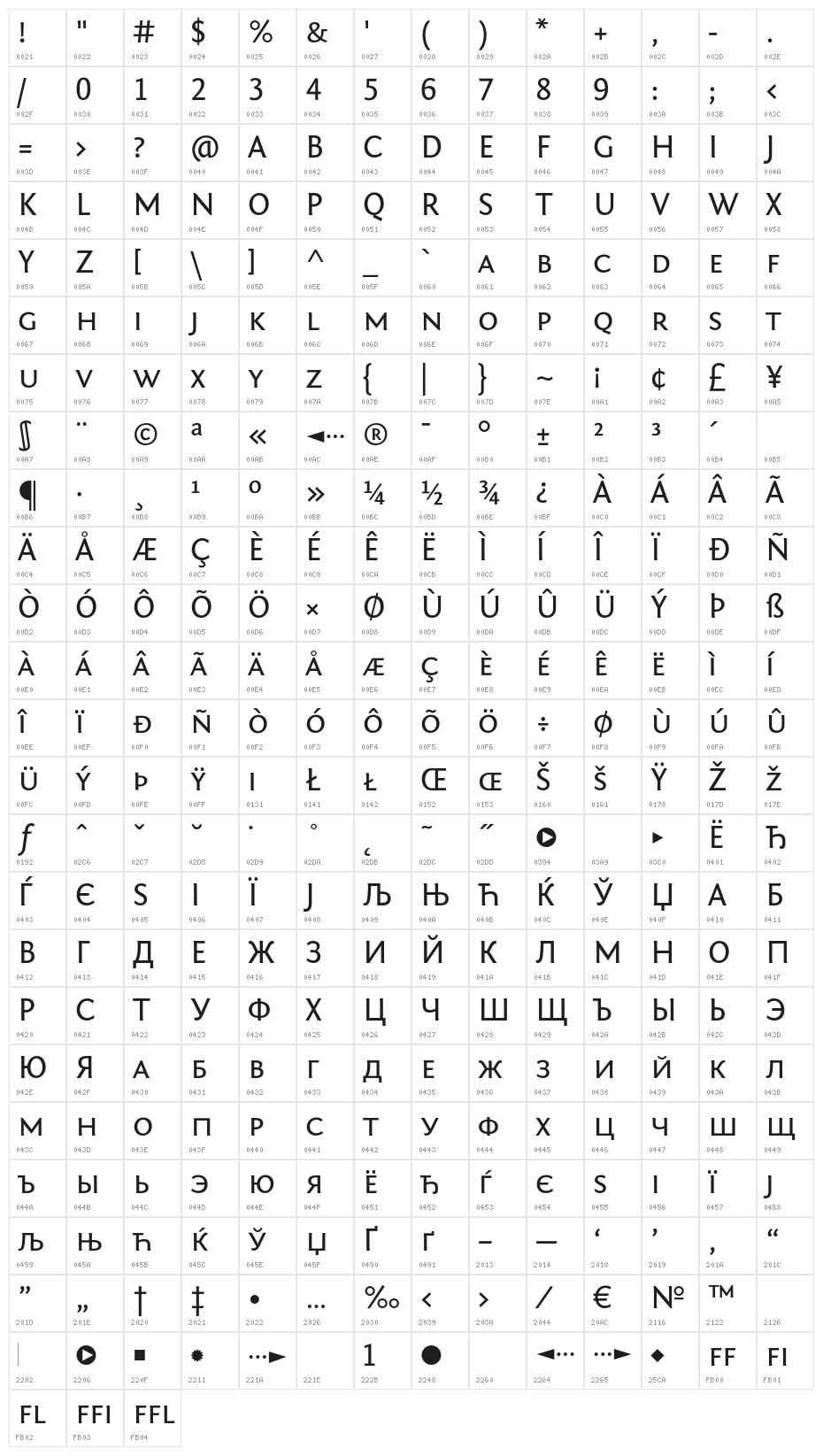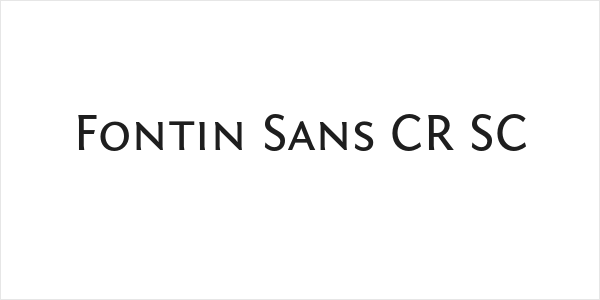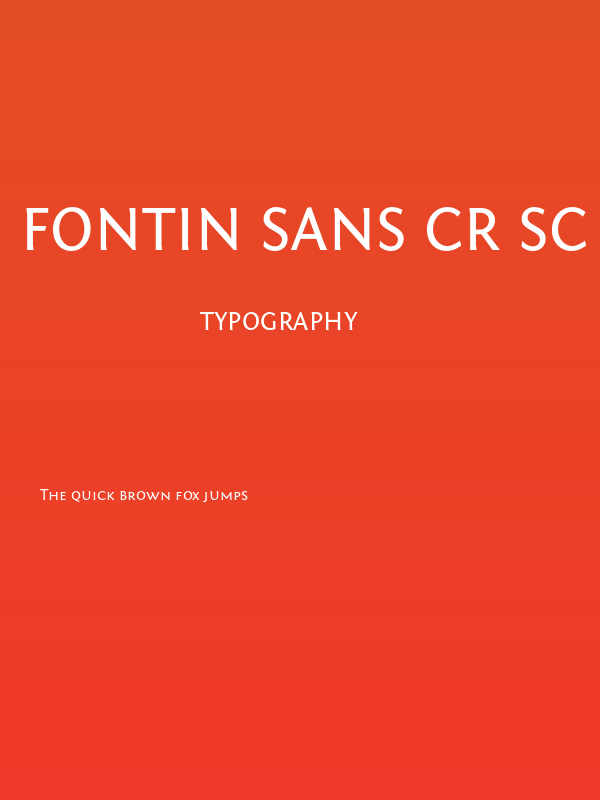
Fontin Sans CR SC Font
Fontin Sans CR SC Description
This font features a clean and modern sans-serif style with a balanced and uniform appearance. The characters are well-proportioned, offering a harmonious blend of simplicity and elegance. The uppercase and lowercase letters maintain a consistent stroke width, contributing to a cohesive look. The numerals are clear and easily distinguishable, making them suitable for various applications. Special characters are included, providing versatility for different design needs. The overall design is straightforward, making it ideal for both digital and print media.